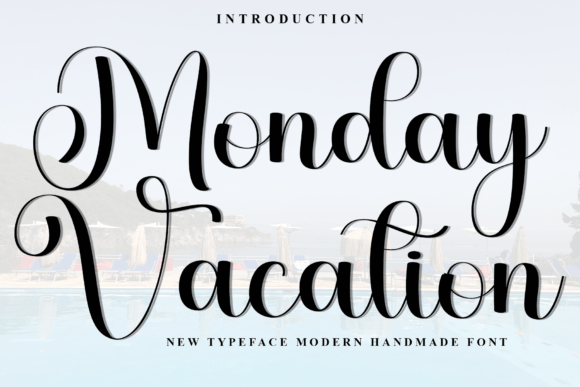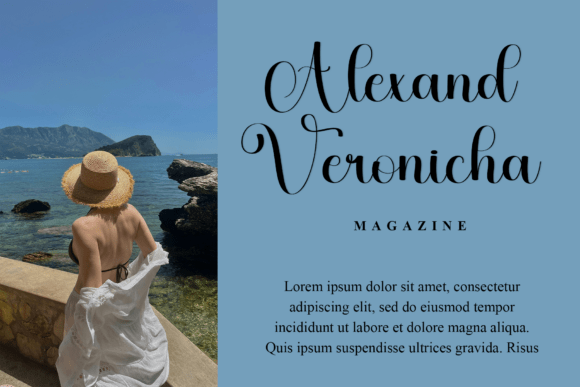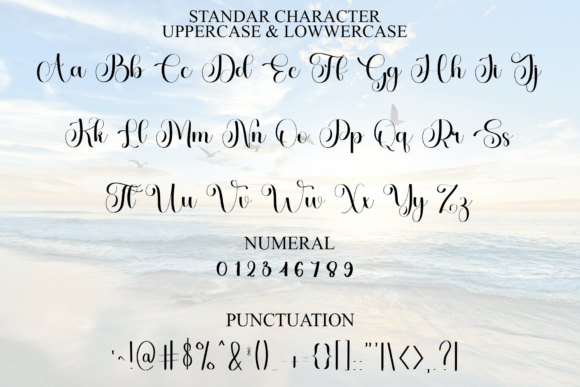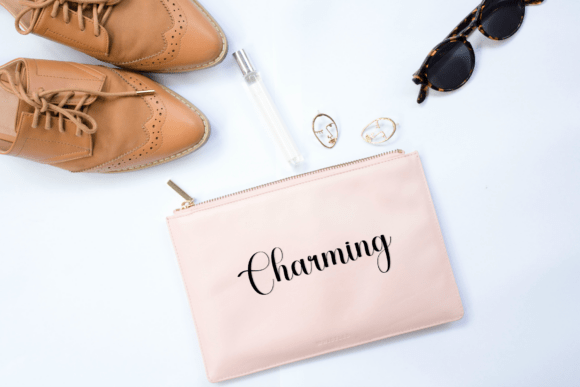
Monday Vacation Font
About the Monday Vacation Font
The wait is over! The incredible Monday Vacation Font is now available for your design toolkit. Monday Vacation is a beautiful and eye-catching font designed with a soft, unique touch. Its distinctive strokes give it a special character, making it meaningful and versatile for future use. With various characters, it’s perfect for design projects, crafts, and other creative works.